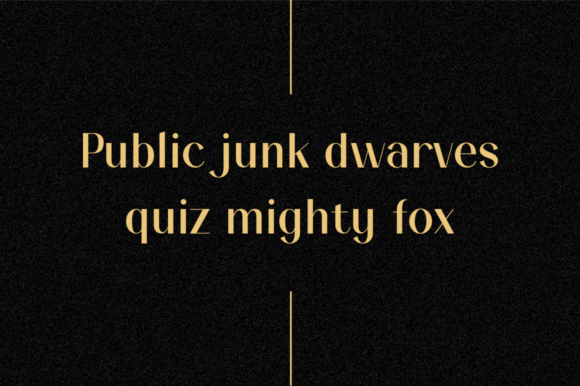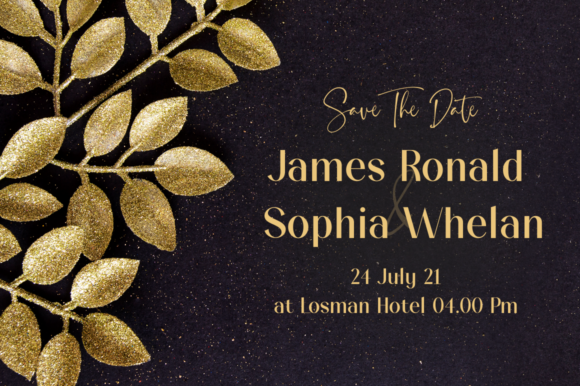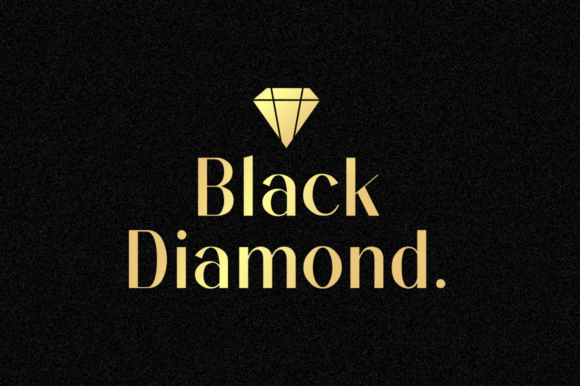
Introduction to Mostery Font
Mostery is a modern Sans Serif Font, perfect for branding, invitations, stationery art, wedding designs, social media posts, advertisements, product packaging, product designs, label, photography, watermark, special events, and more.
Mostery is a modern Sans Serif Font, perfect for branding, invitations, stationery art, wedding designs, social media posts, advertisements, product packaging, product designs, label, photography, wat
Key Features of Mostery Font
Why Choose Mostery Font?
Mostery Font offers exceptional quality and versatility, making it a valuable addition to your design toolkit. Whether you’re creating for personal projects or commercial use, Mostery Font delivers professional results.